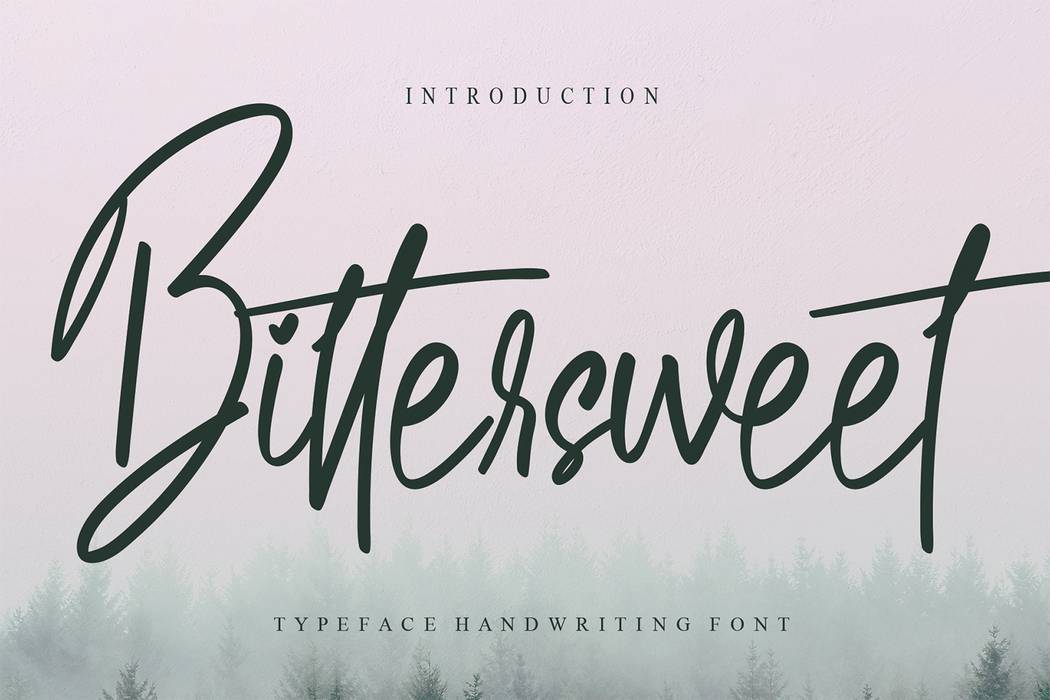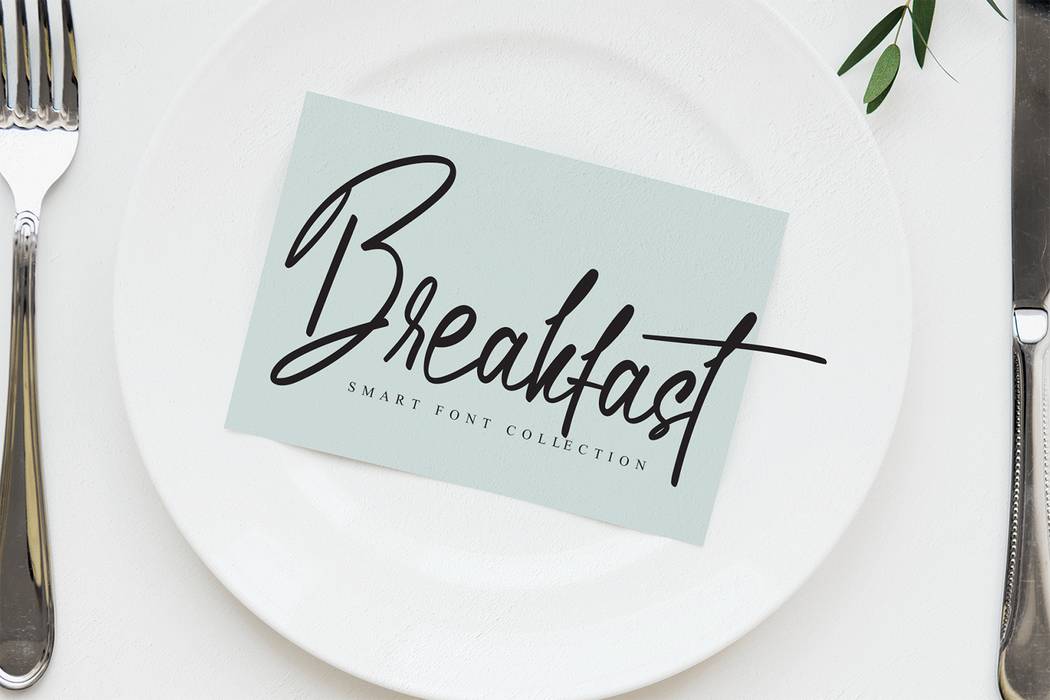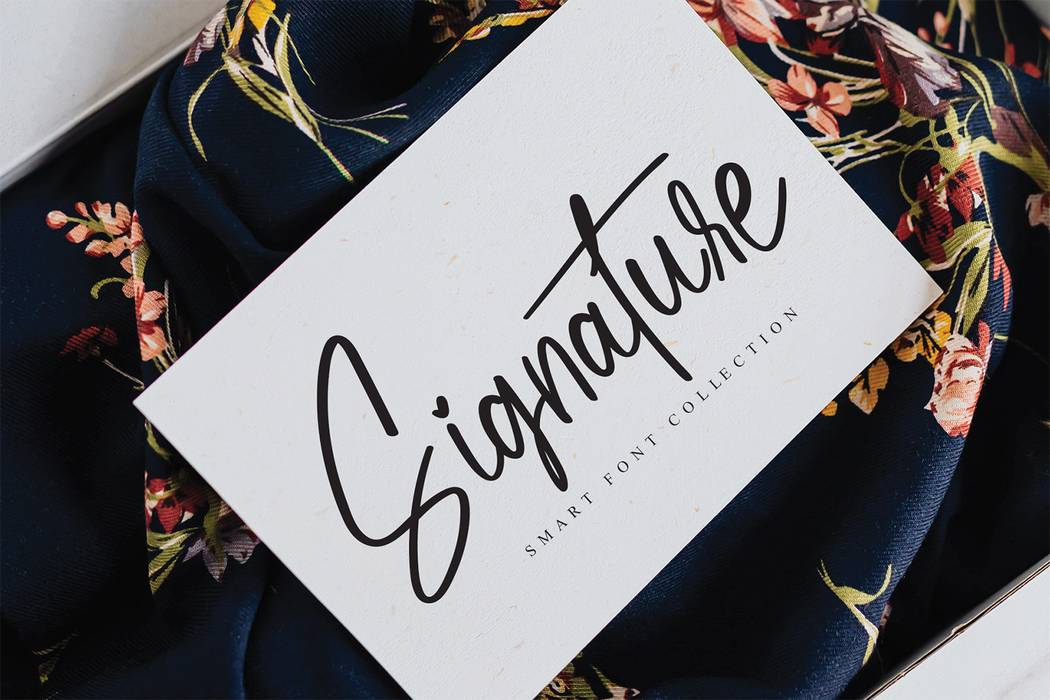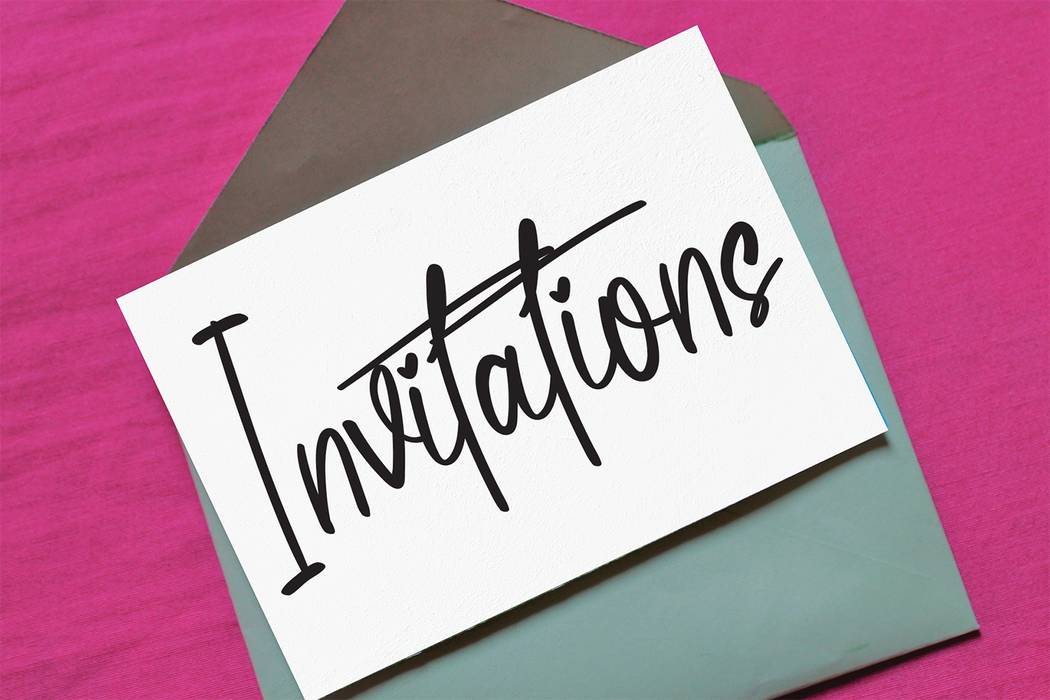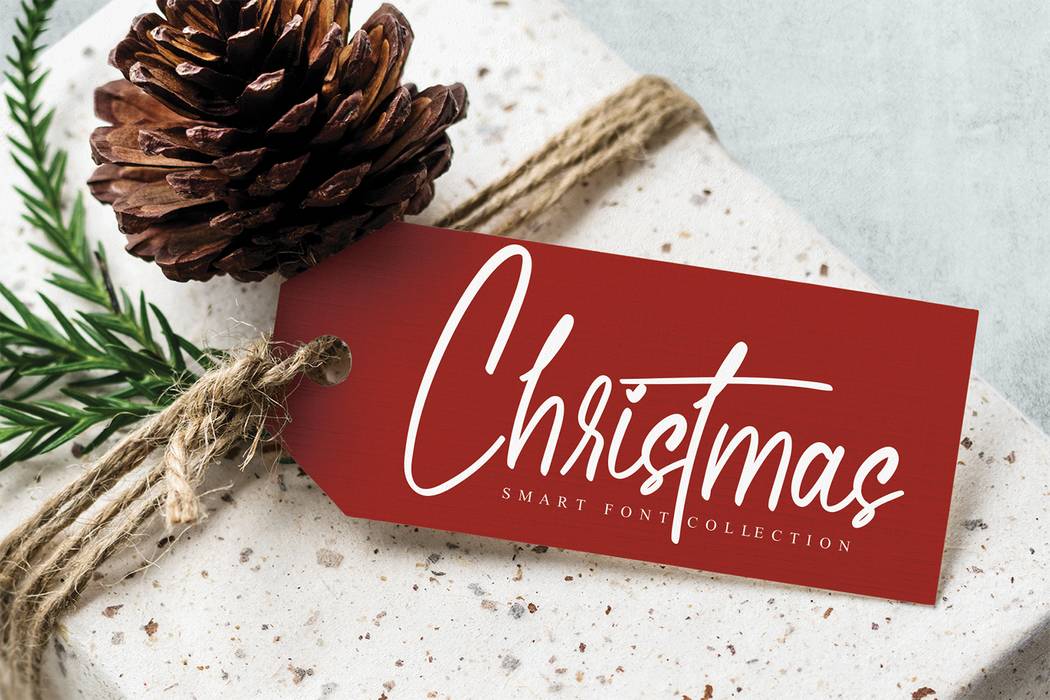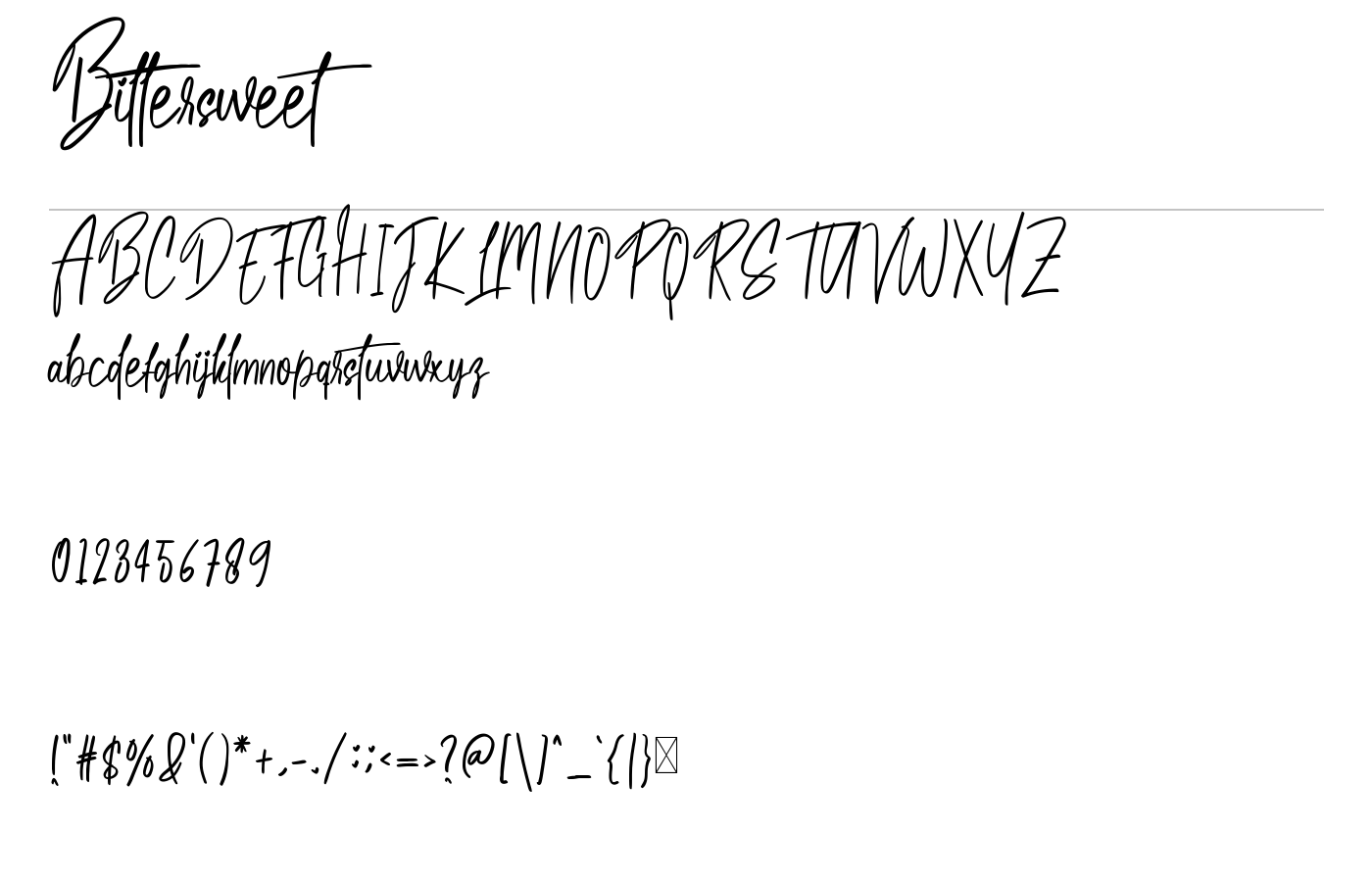
Bittersweet is a handwritten script font that exudes a casual yet refined personality with its tall, narrow letterforms and fluid strokes. Its light weight and delicate lines give it an airy, elegant feel, making it perfect for modern, creative, or personal branding projects that want to convey authenticity and style. This font works well for logos, invitations, and headlines where a distinctive, hand-crafted touch is desired.
Bittersweet Font
About Bittersweet Font